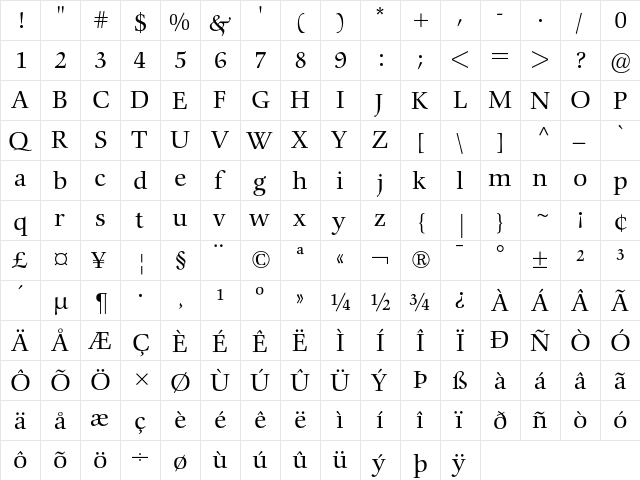
Comenius Antiqua Regular
Design Context for Comenius Antiqua Typeface
Comenius Antiqua offers clean, dependable letterforms without strong stylistic allegiance, making it a practical choice for designers who need flexibility.
Pro Tip: Use Comenius Antiqua in both headline and body roles to test its range before committing to a single application.